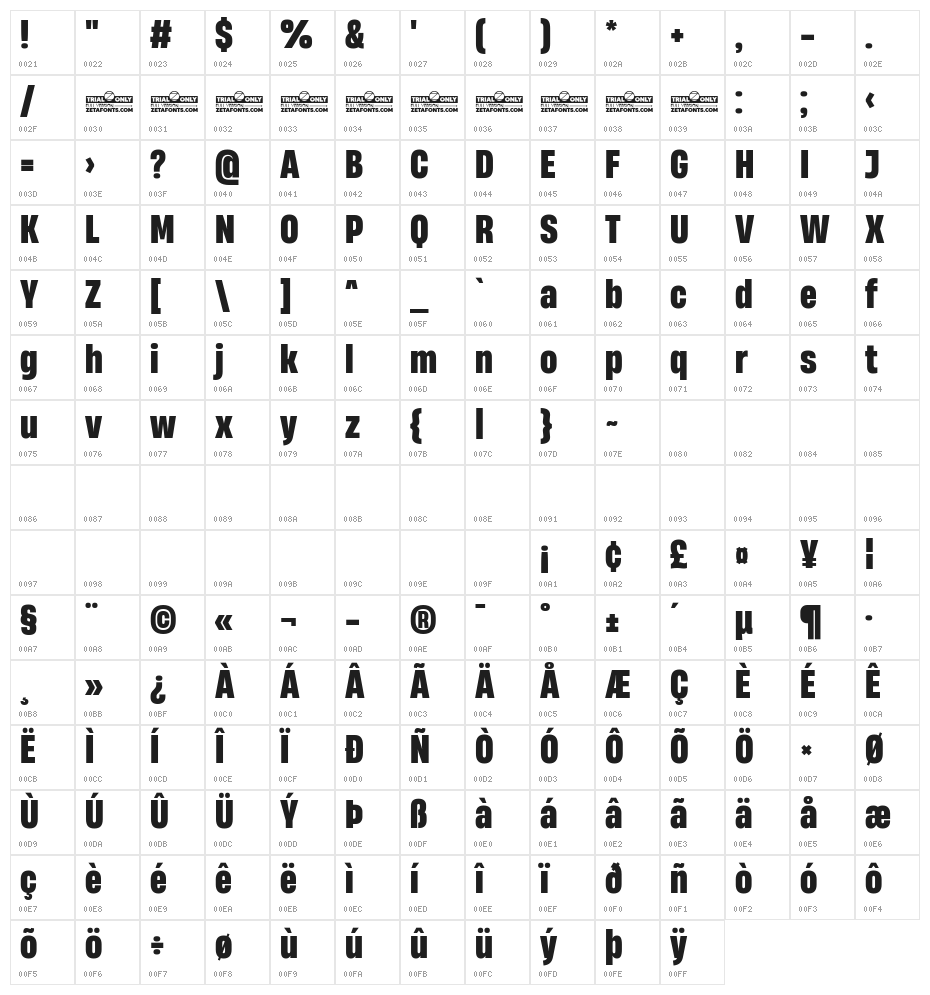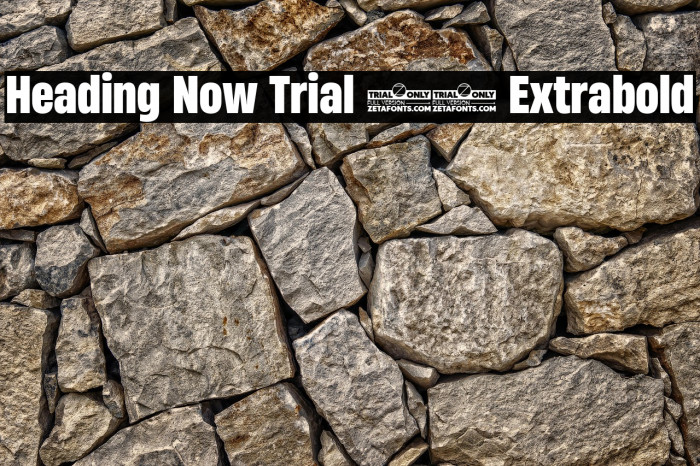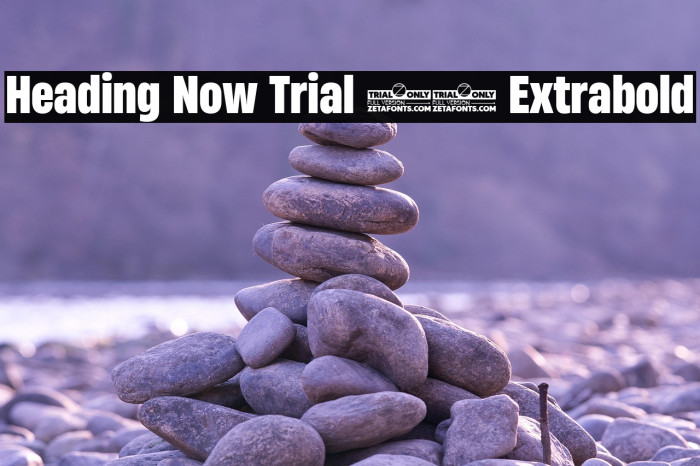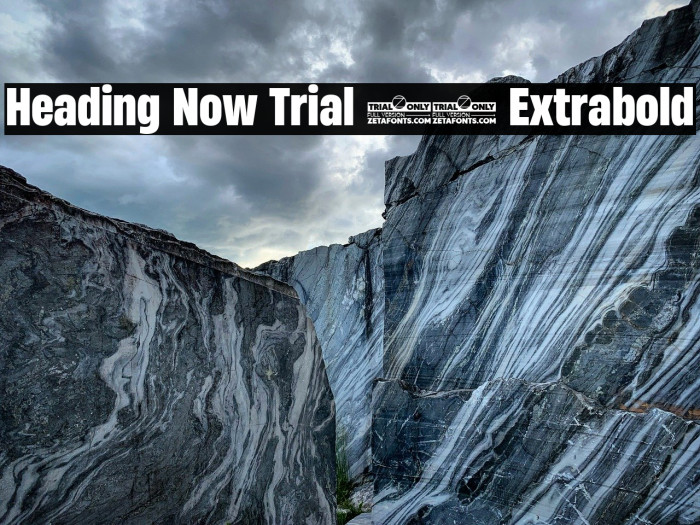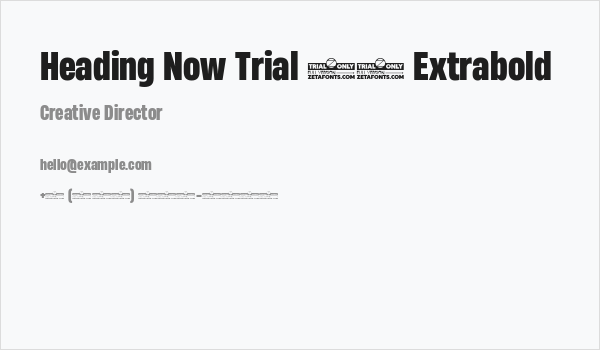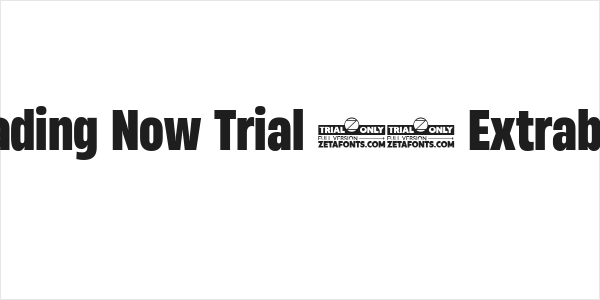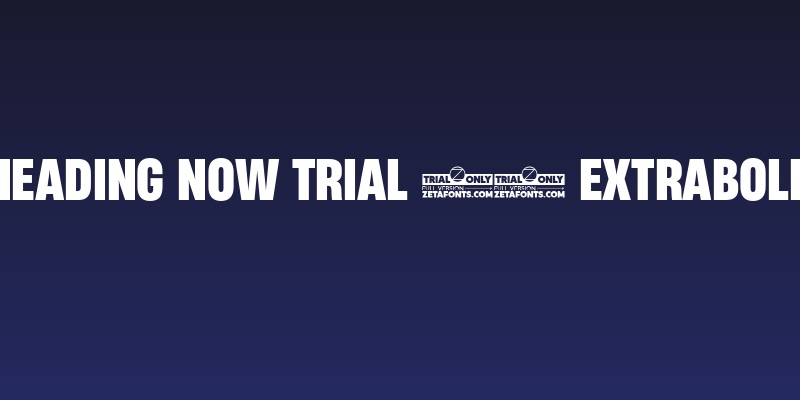
Heading Now Trial 57 Extrabold Font
| Vorgeschlagene Projekte | Ideal for headlines, posters, branding, and any design requiring a strong, impactful presence. |